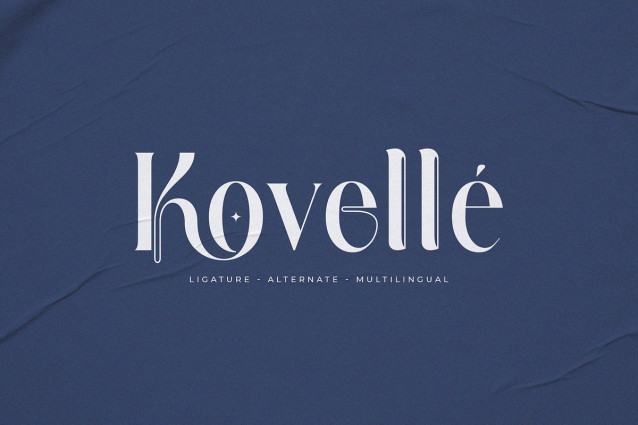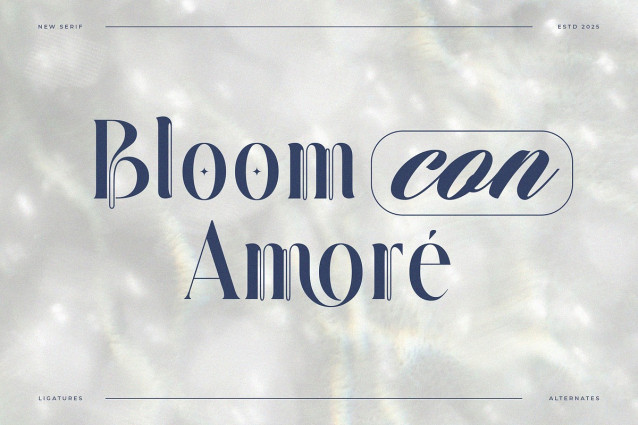
Quante Font
Quante Font is a refined and artistic modern display serif font, crafted with exceptional attention to detail and an elegant balance between traditional serif characteristics and experimental contemporary shapes. Each letterform features subtle yet impactful artistic touches—such as stylish curves, clean cuts, and decorative terminals—making Quante an ideal typeface for projects that demand uniqueness with a premium visual identity.
This display serif typeface is suitable for both print and digital applications. With its combination of fluid elegance and structured modernism, Quante is a perfect choice for branding projects, editorial headlines, logo design, boutique packaging, magazine layouts, fashion lookbooks, social media graphics, and much more.